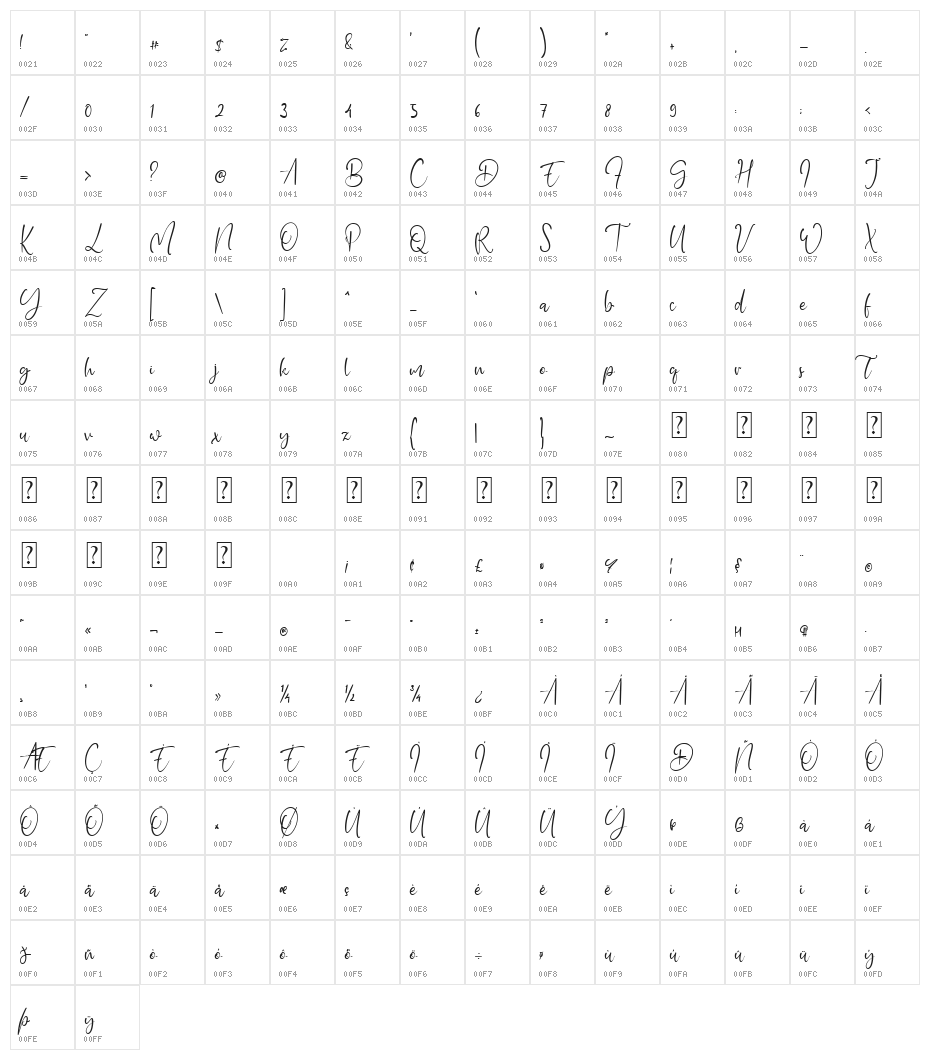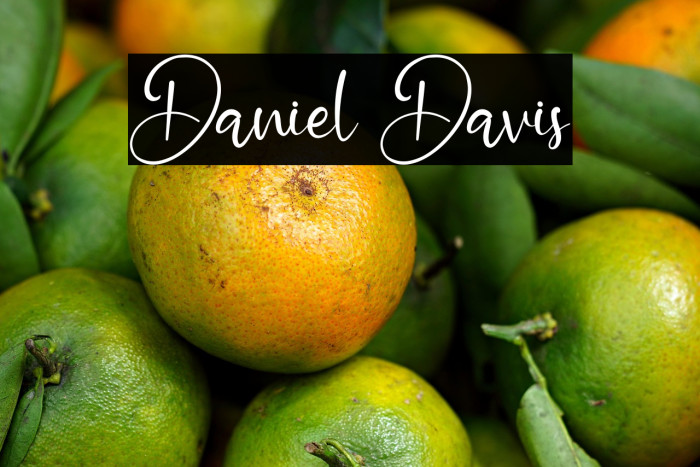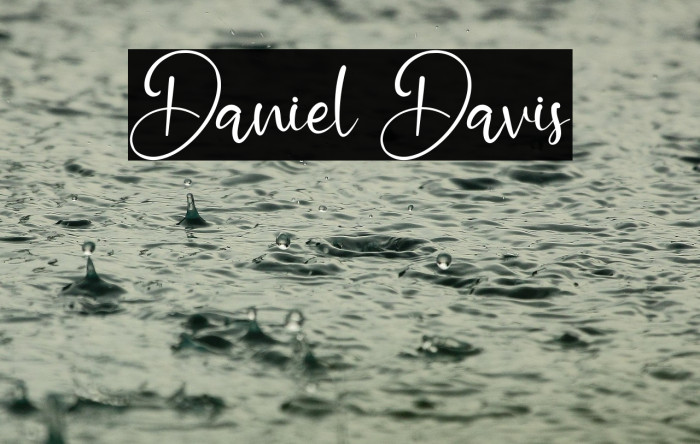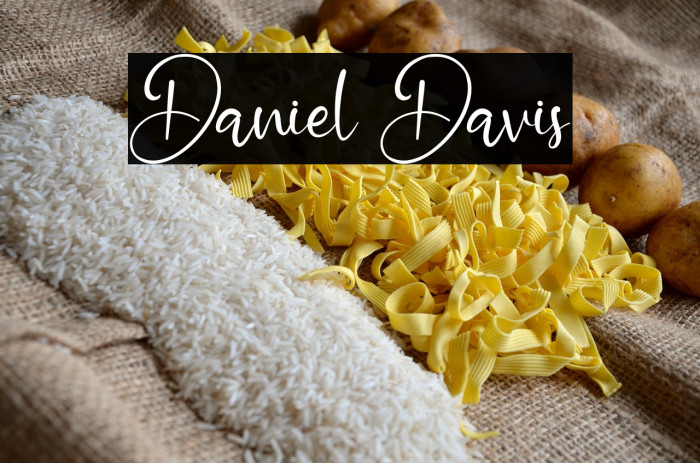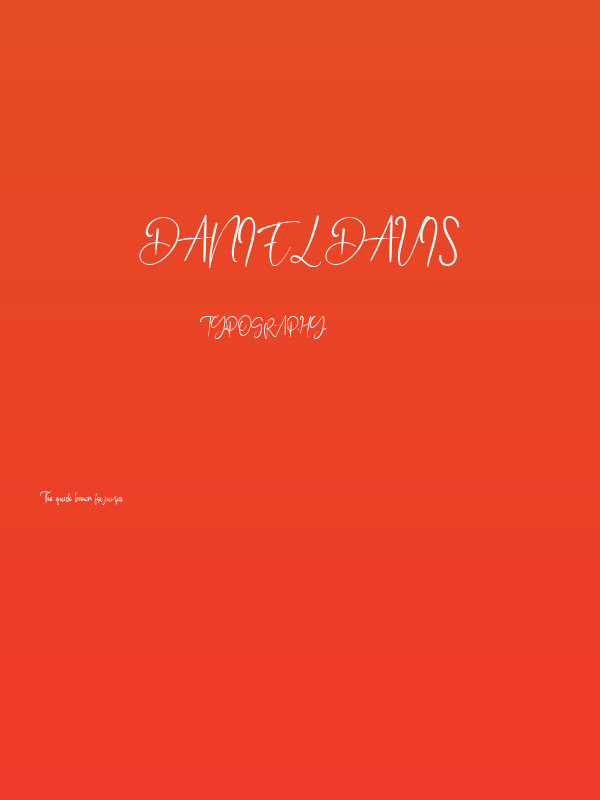
Daniel Davis Font
Daniel Davis Description
This font features a lively and expressive script style, characterized by its flowing, cursive letters that convey a sense of elegance and creativity. The uppercase letters are tall and slender, with sweeping curves and loops that add a dynamic flair. The lowercase letters maintain a consistent style, with smooth connections and a playful rhythm. Numbers and special characters are crafted with the same attention to detail, ensuring a cohesive look across all elements. The overall appearance is both sophisticated and approachable, making it suitable for a variety of design applications.